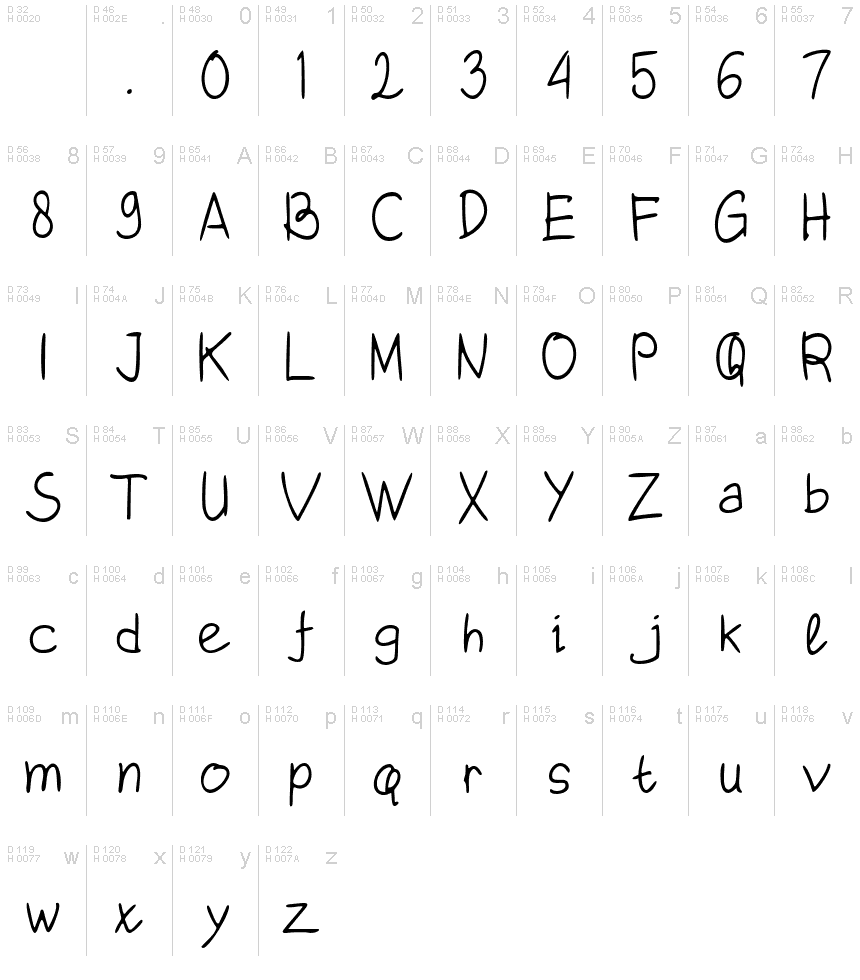
Santosa Handwriting Sample Reg
Introducing Santosa Handwriting, this is my Father handwriting, he wrote this about 2 years ago when I started to learn making font I ask him can you write your hand writing. At this time he can not write again because stroke disease. I try to make a memories of him and made a preview of fatherhood with quote. I hope with this story, this font and preview will inspire you to love your father more and more, Right now I am a Father too and I feel his feeling when he hugged me tight. Love you Dad.
This is my father typeface, he wrote when he is in healthy condition. I made this to remember his writing because right now (at this time I wrote this) he is in stroke disease condition so he wont able to writing again. I hope he is will back healthy again, aminn so he can play with his grand daughter again. aminnn